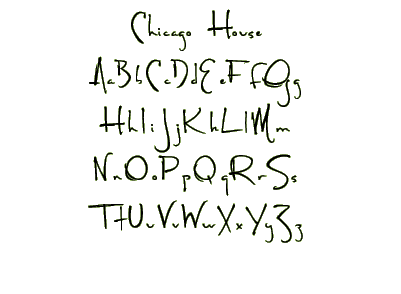
This font is based on the handwriting of Cheryll Houston, who was the executive director of Chicago House, an institution for the support of people with HIV/AIDS in Chicago.